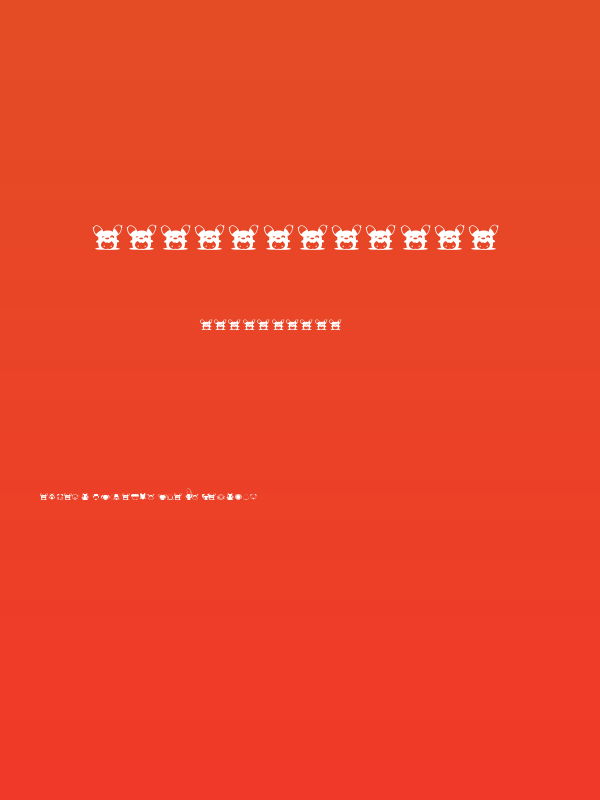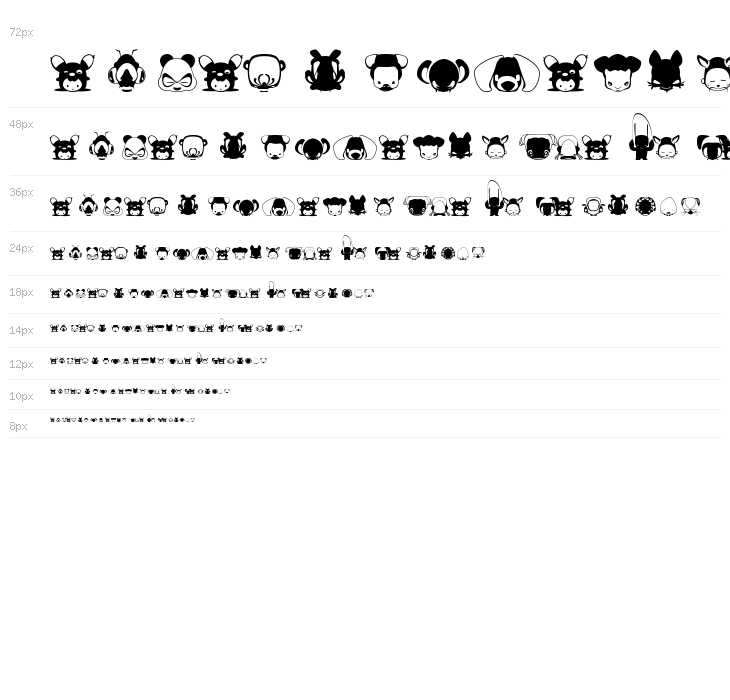
Pictoserie 3 Font
Pictoserie 3 Description
A playful decorative font composed entirely of cartoonish animal and character faces, each glyph representing a unique, whimsical illustration rather than traditional alphanumeric forms.
| Overall Style | Playful, Whimsical, Decorative |
| Use Case | Decorative elements, icons, borders, not for text. |
| Proposed Projects | Children's books, party invitations, stickers, scrapbooking, playful branding, educational materials. |